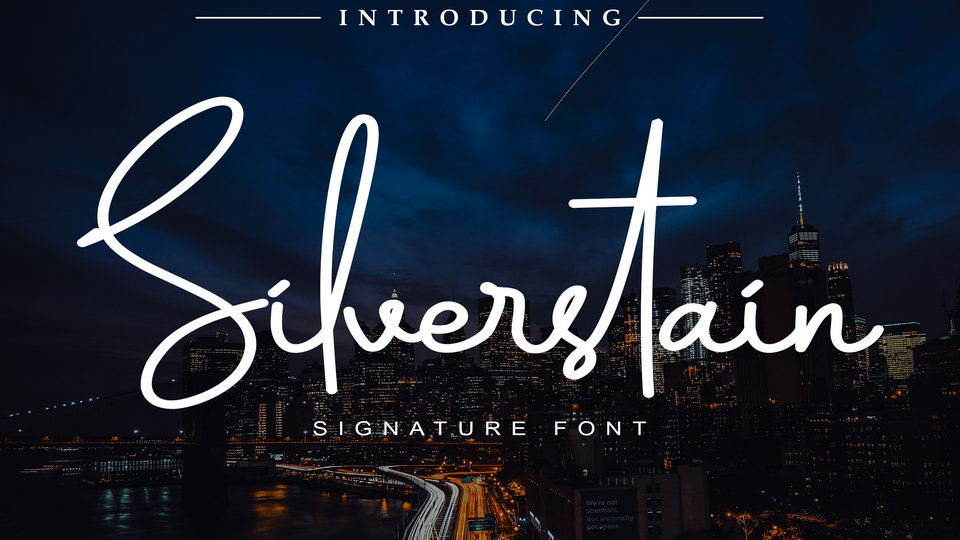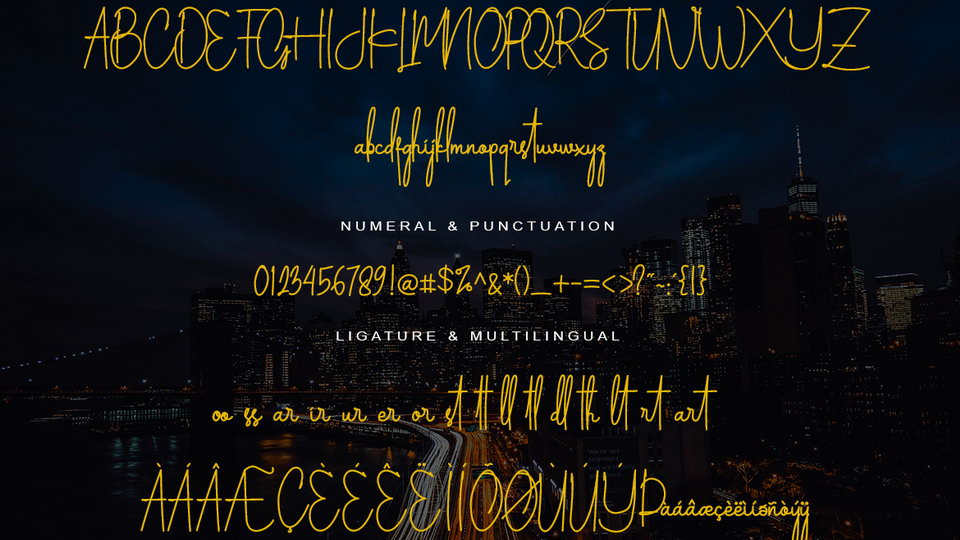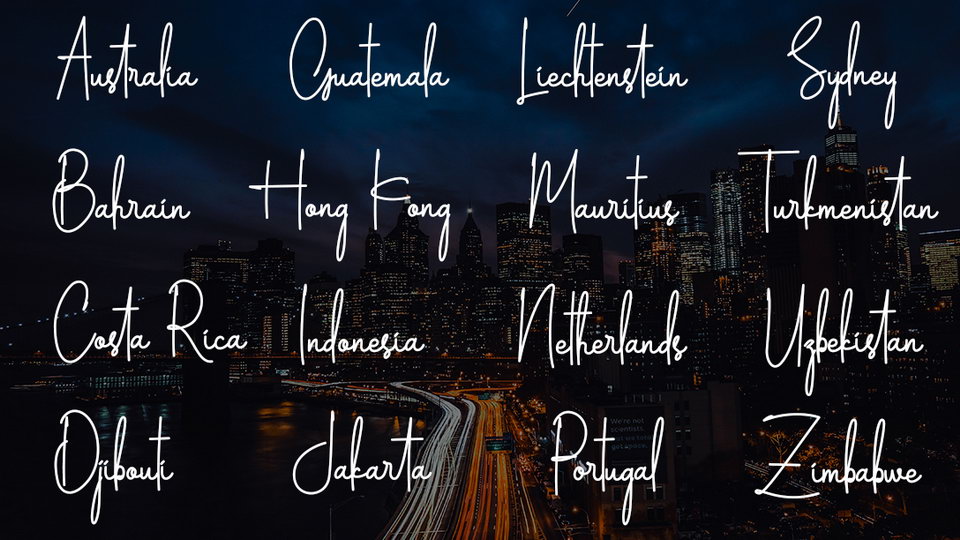
Silverstain is a striking signature style handwritten script font that is perfect for adding a personal touch to your designs. It also contains ligatures and multilanguage glyphs.
Silverstain font can be used for logos, fashion desings, magazines, posters, quotes, and much more!